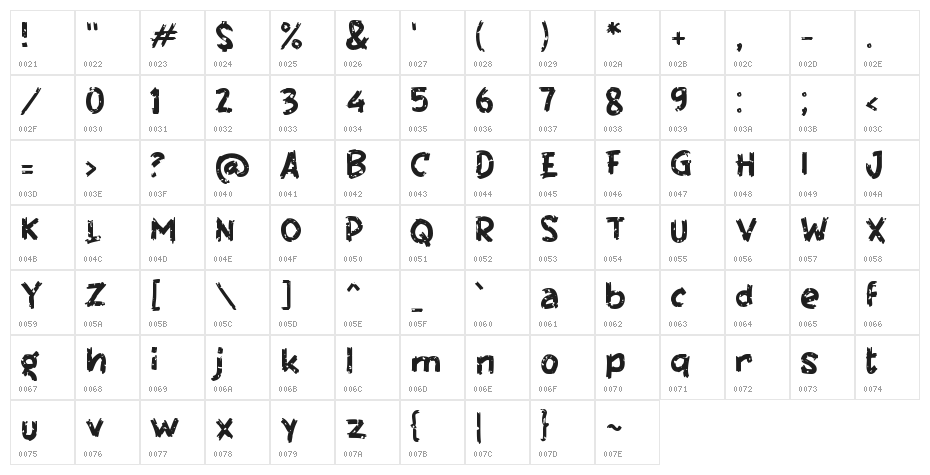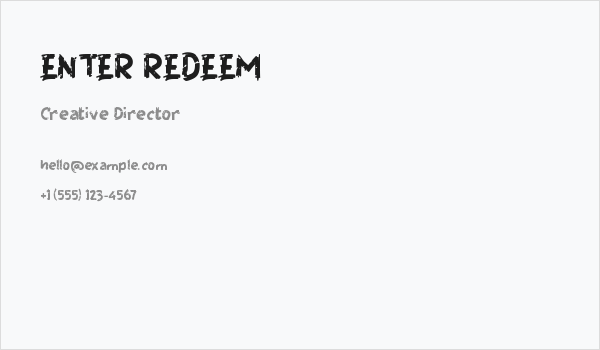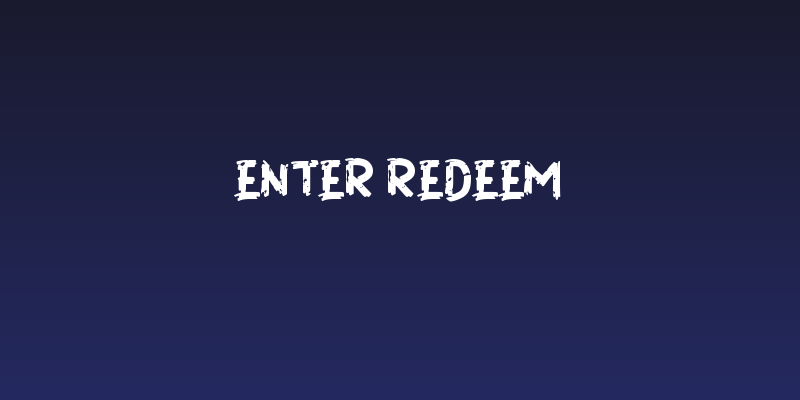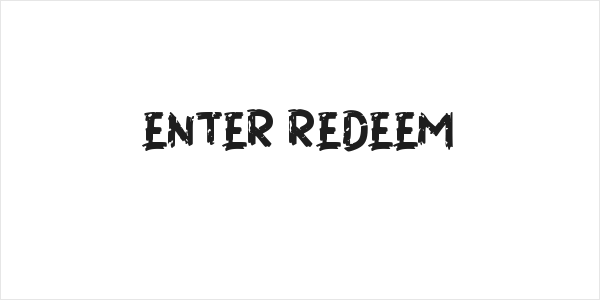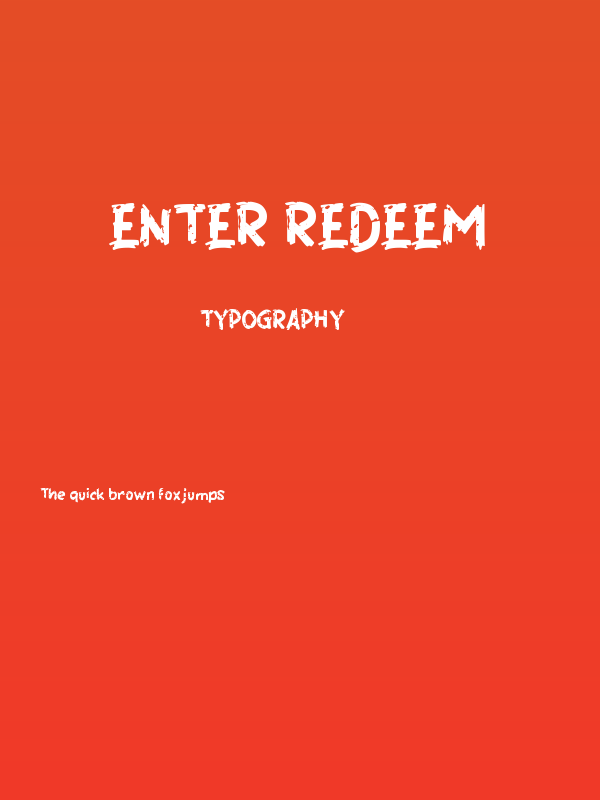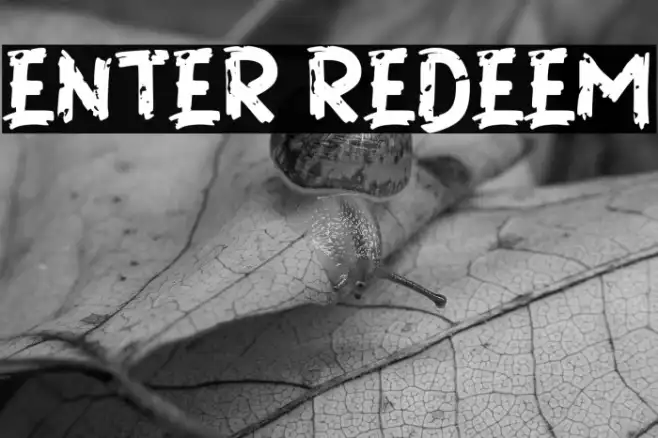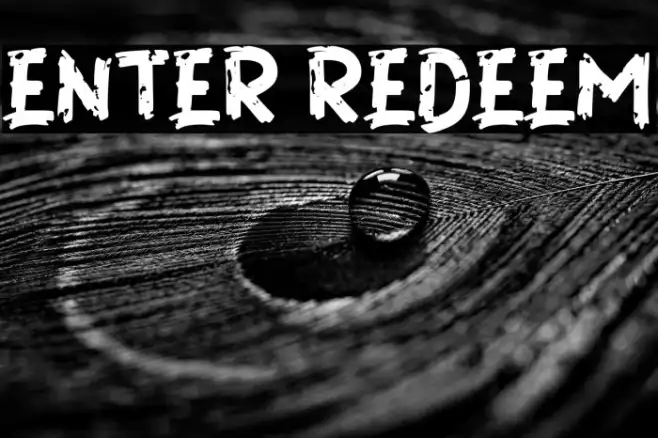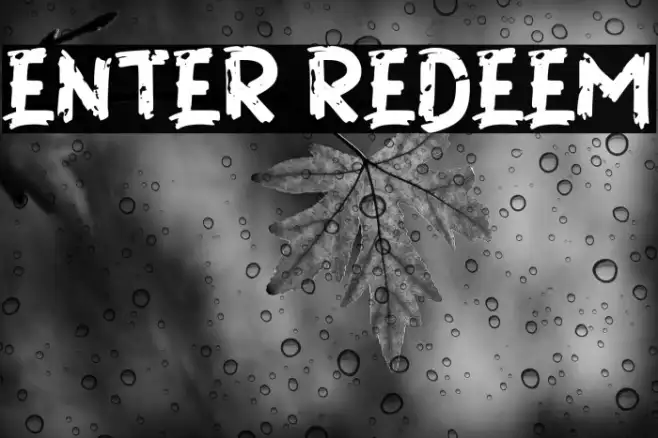
ENTER REDEEM Font
ENTER REDEEM Description
This font features a bold and distressed style, with a textured appearance that gives it a rugged, hand-painted look. The characters are irregular and have a rough, grunge-like texture, making them stand out with a unique, artistic flair. The uppercase and lowercase letters maintain a consistent style, with the uppercase being slightly larger and more pronounced. Numbers and special characters follow the same distressed pattern, ensuring uniformity across all glyphs. This font is ideal for projects that require a bold statement or an edgy, creative touch.
| Proposed Projects | Ideal for posters, album covers, streetwear branding, and creative advertising campaigns. |